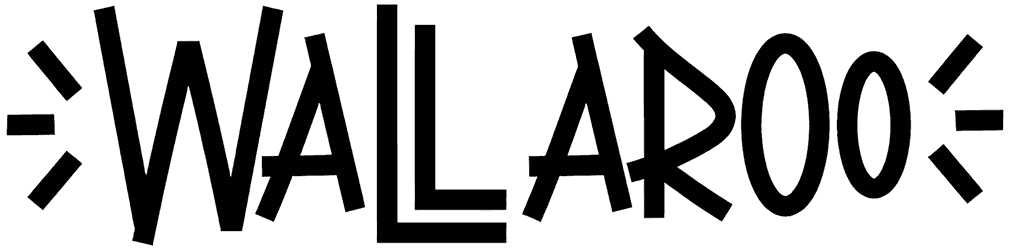
Wallaroo Font
It is worth applying this comic font to highlight your coming typography to go over and beyond the others with its charming traits, playful, friendly, and hand-made face.
Although Wallaroo deprived us of lowercase letters and numbers, it can make a remarkable impact on designing any posters, animation, logo, branding, games, and anything else with its cartoonish style. Need more summer fonts? Head over to RB soon and enjoy such freebies assets!